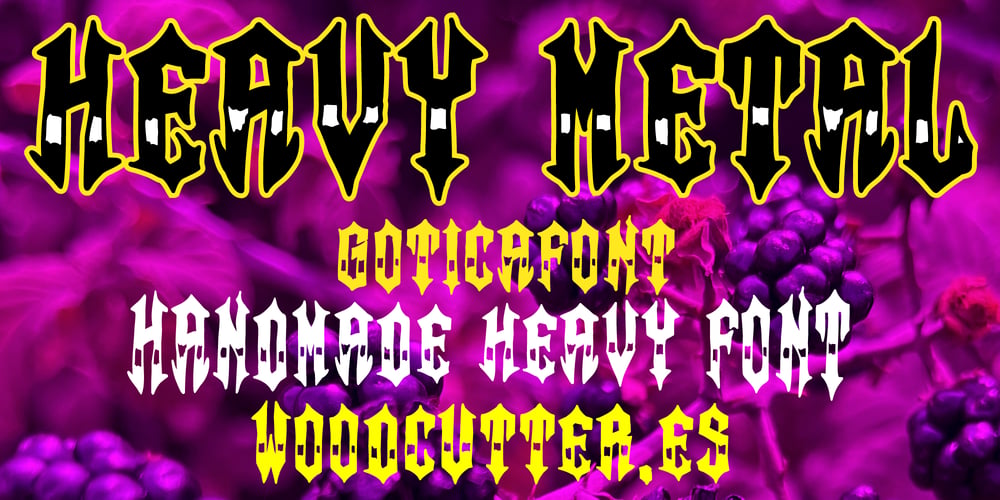
Heavy Metal Font Family was designed by Jordi Manero and published by Woodcutter. Heavy Metal contains 1 styles and family package options. “Heavy Metal” is an uppercase font in a modern gothic style, combining rough strokes with a handcrafted finish. Each letter has a strong, semi-solid character, evoking the aesthetic of heavy metal music and culture. The manual strokes give it an authentic, raw feel, making it ideal for impactful and dark designs. “Heavy Metal” is perfect for album covers, concert posters, and any visual project seeking to convey intense energy and a rebellious style. This font brings personality and drama, standing out with its firm presence and bold essence.